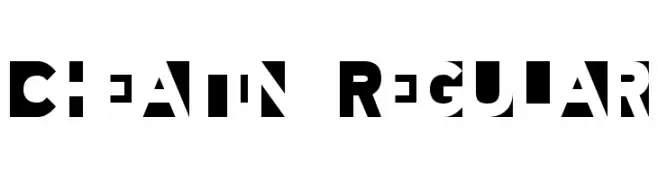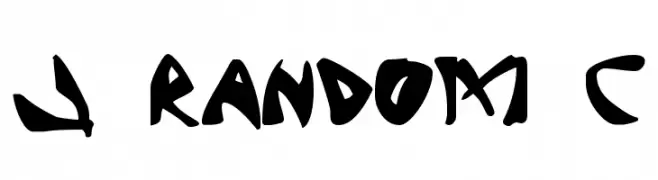
( Fonts by Dennis Ludlow - Sharkshock )
A playful, bold handwritten font with a whimsical and casual style.
( Fonts by Matthew Austin Petty - www.disturbed.com )
A whimsical, hand-drawn font with playful and irregular letterforms.
( Fonts by Matthew Welch - www.squaregear.net/fonts/ )
A bold, geometric font with modern, block-like characters and unique cut-out sections.
( Fonts by Matthew Welch - www.squaregear.net/fonts/ )
A pixelated, retro-style font with a blocky, digital appearance.
( Fonts by Matthew Austin Petty - www.disturbed.com )
A whimsical, bubbly outline font with playful accents and a hand-drawn feel.
( Fonts by Glyphobet Font Foundry - Matt Chisholm - http://glyphobet.net/typography/ )
A bold, playful font with geometric and whimsical elements.
( Fonts by Glyphobet Font Foundry - Matt Chisholm - http://glyphobet.net/typography/ )
A bold, decorative font with exaggerated forms and dynamic shapes.
( Fonts by Glyphobet Font Foundry - Matt Chisholm - http://glyphobet.net/typography/ )
A bold, graffiti-inspired font with dynamic, high-contrast strokes.